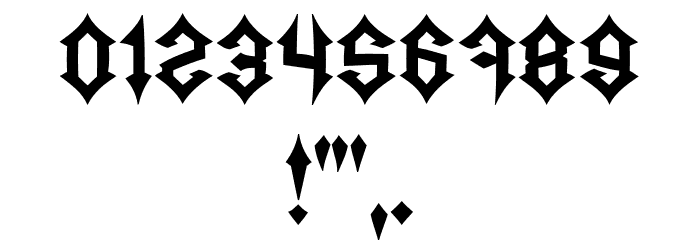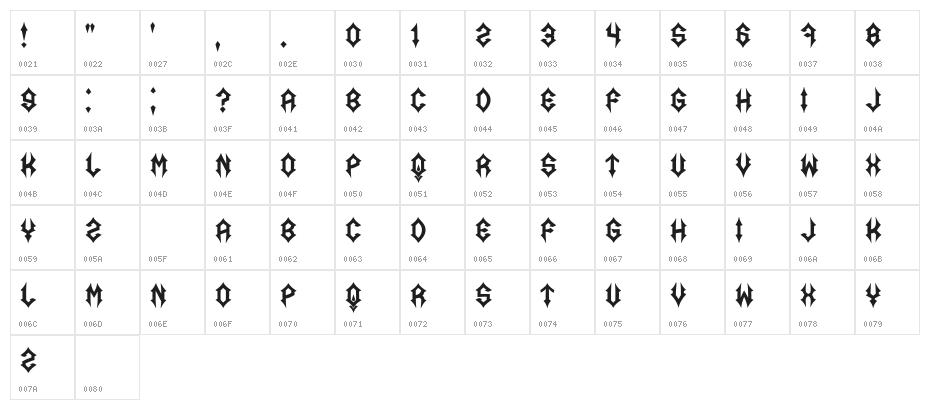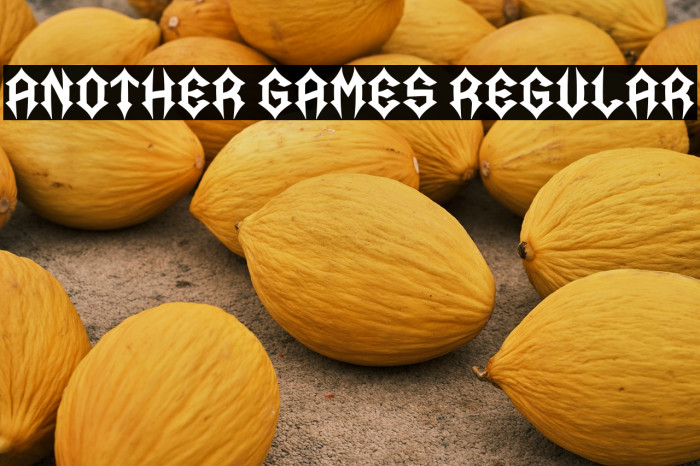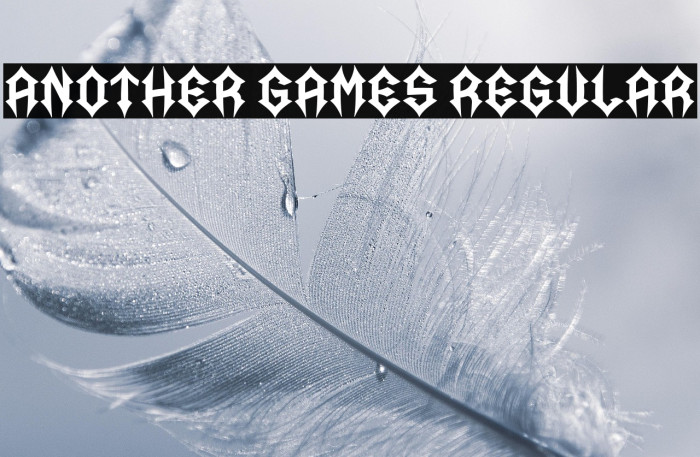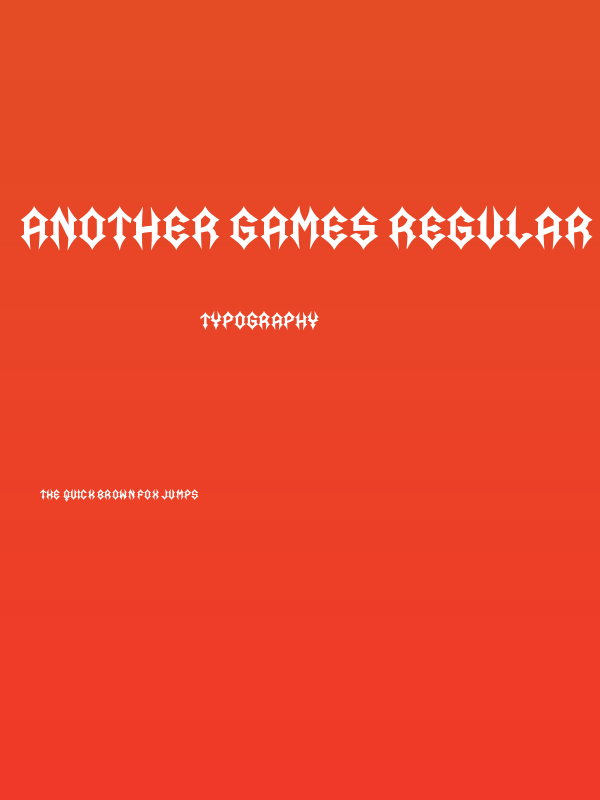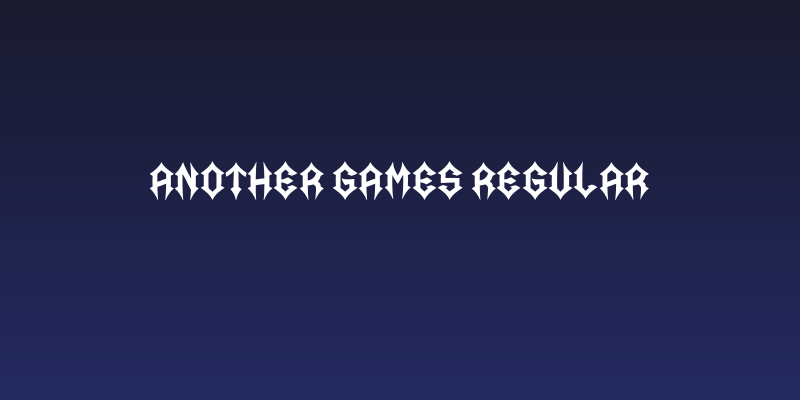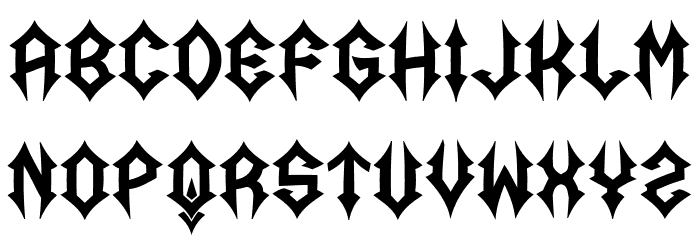
Another Games Regular Font
Another Games Regular Description
This font features a bold and striking design with sharp, angular edges and a gothic-inspired aesthetic. The characters are highly stylized, with pointed serifs and intricate details that give it a dramatic and edgy appearance. The uppercase and lowercase letters maintain a consistent style, with a strong emphasis on vertical lines and symmetrical shapes. The numerals and special characters follow the same design principles, ensuring a cohesive look across all glyphs. This font is ideal for projects that require a bold statement and a touch of medieval or fantasy flair.
| Overall Style | Gothic, Dramatic, Edgy |
| Proposed Projects | Perfect for video game titles, fantasy book covers, posters, and branding that requires a dramatic and edgy look. |